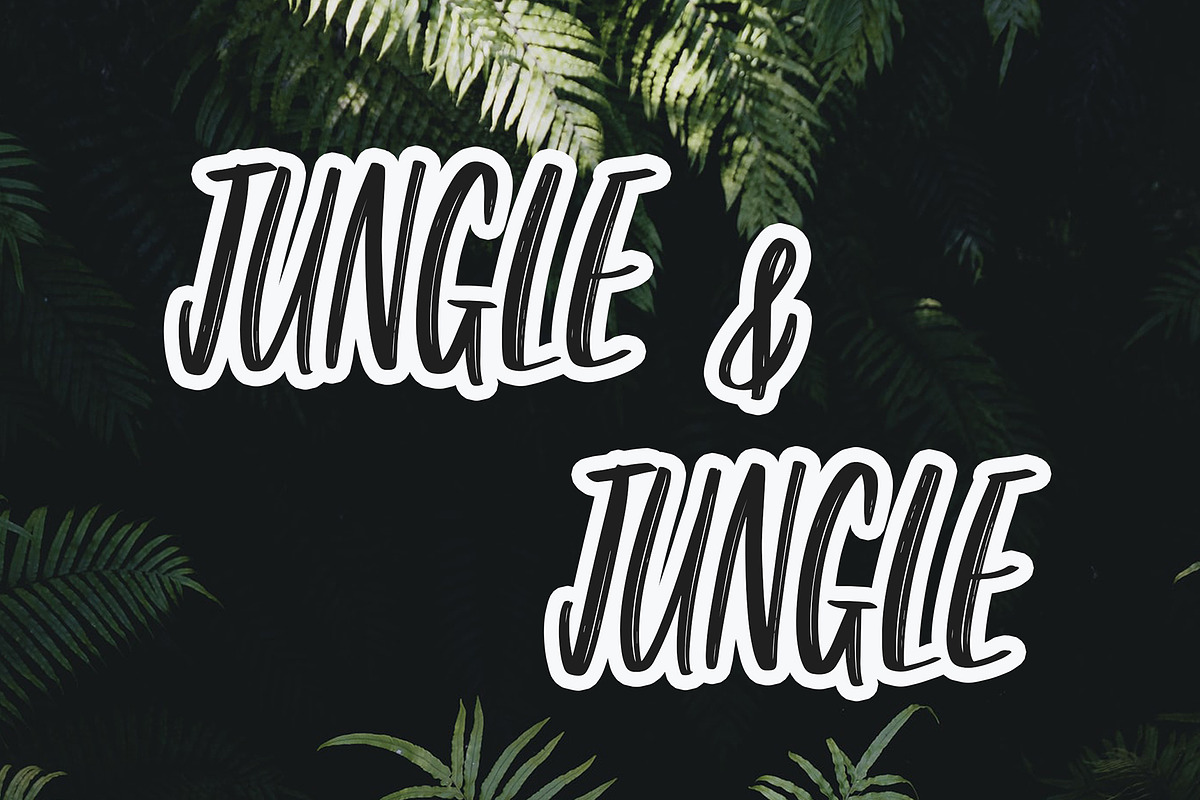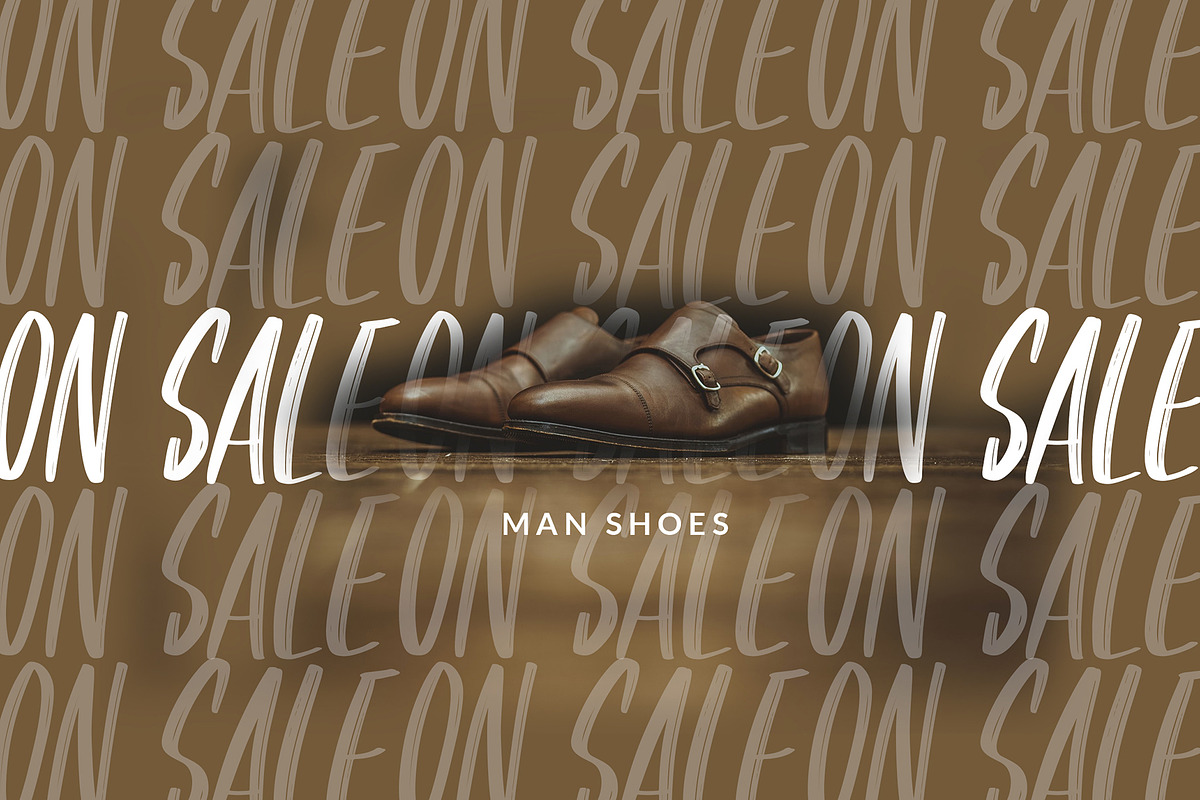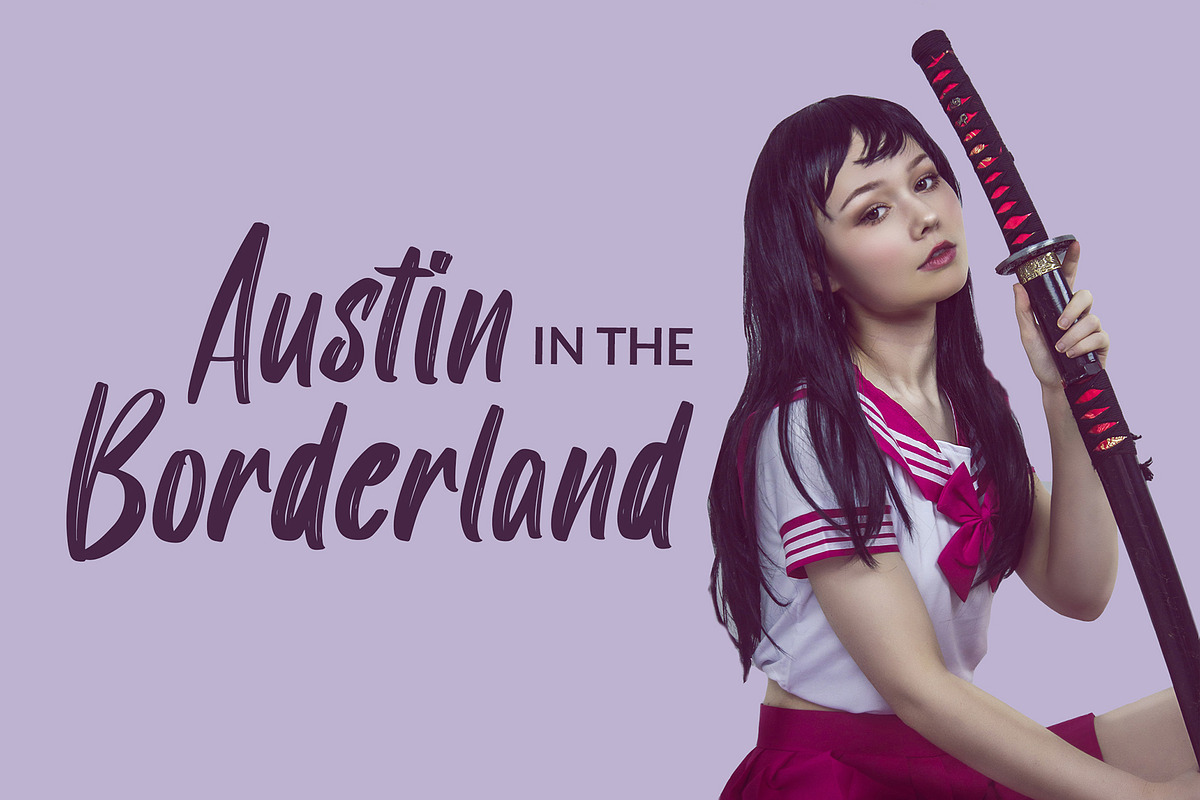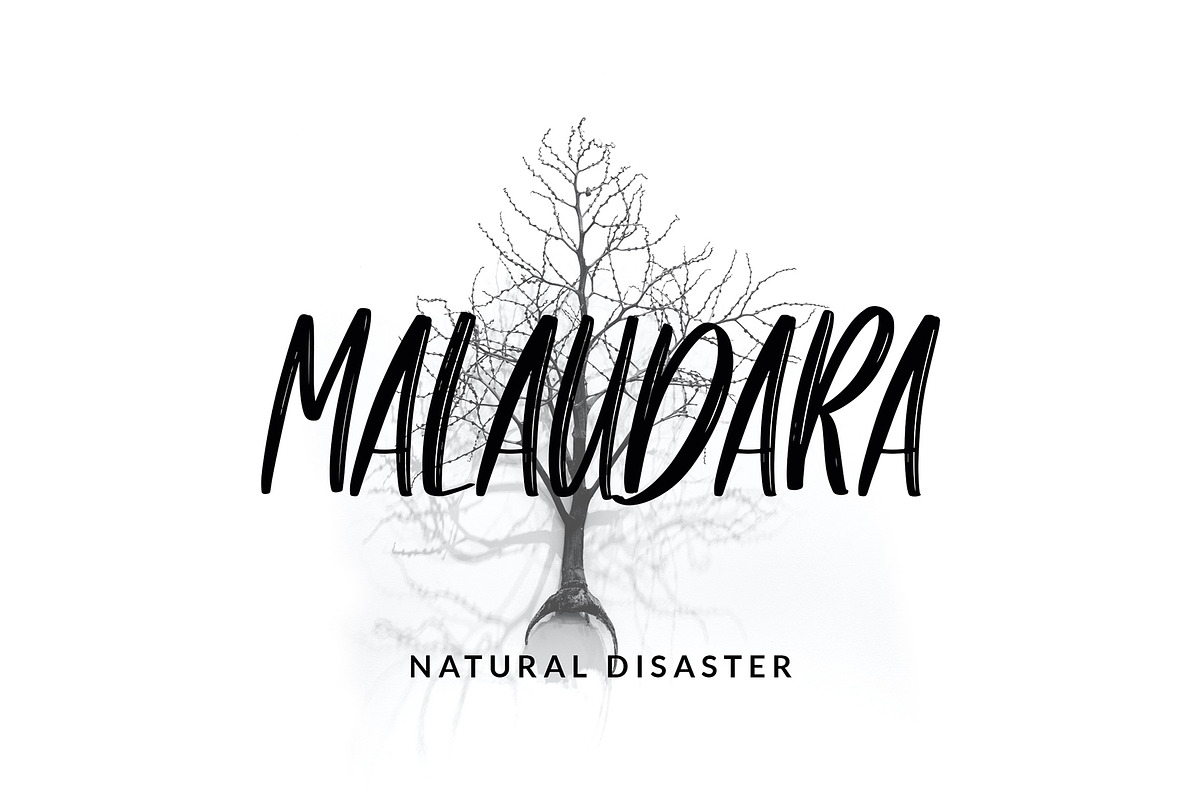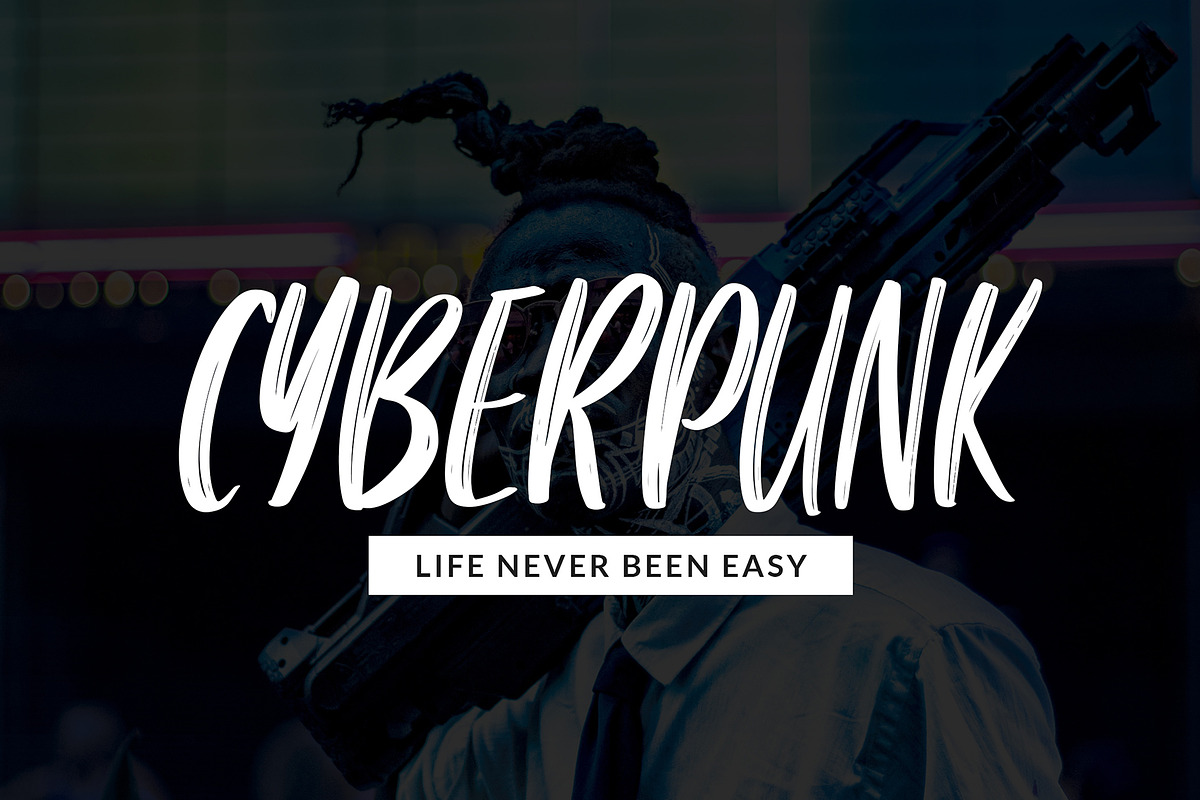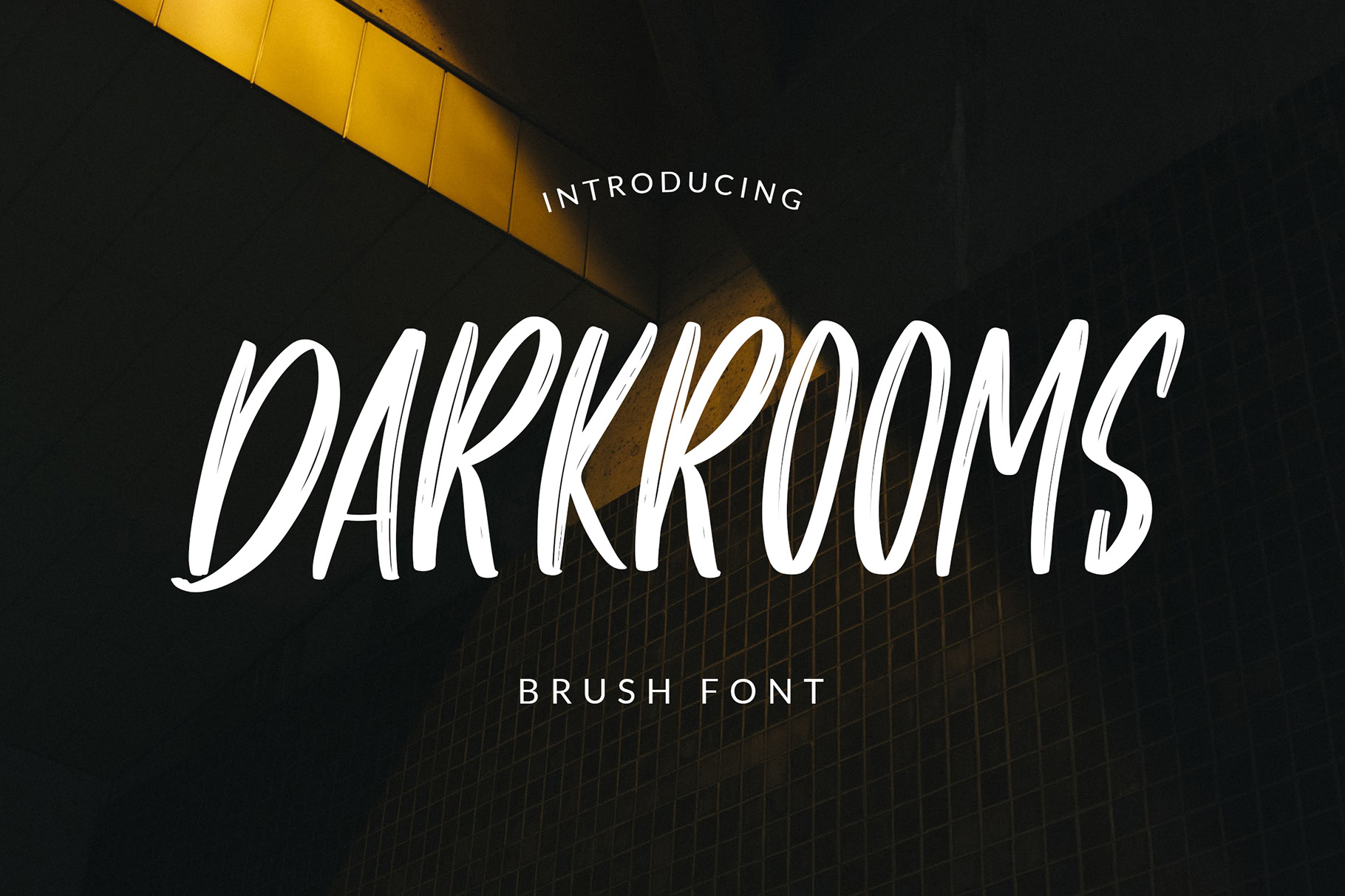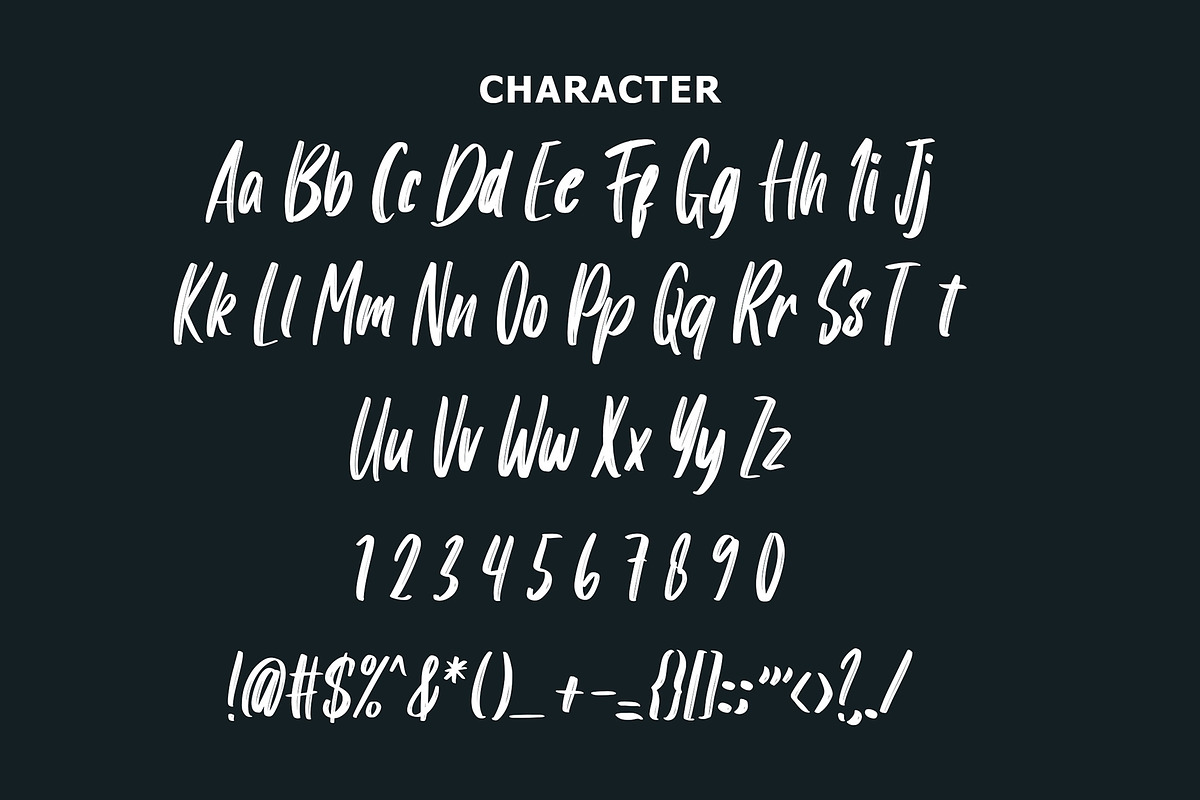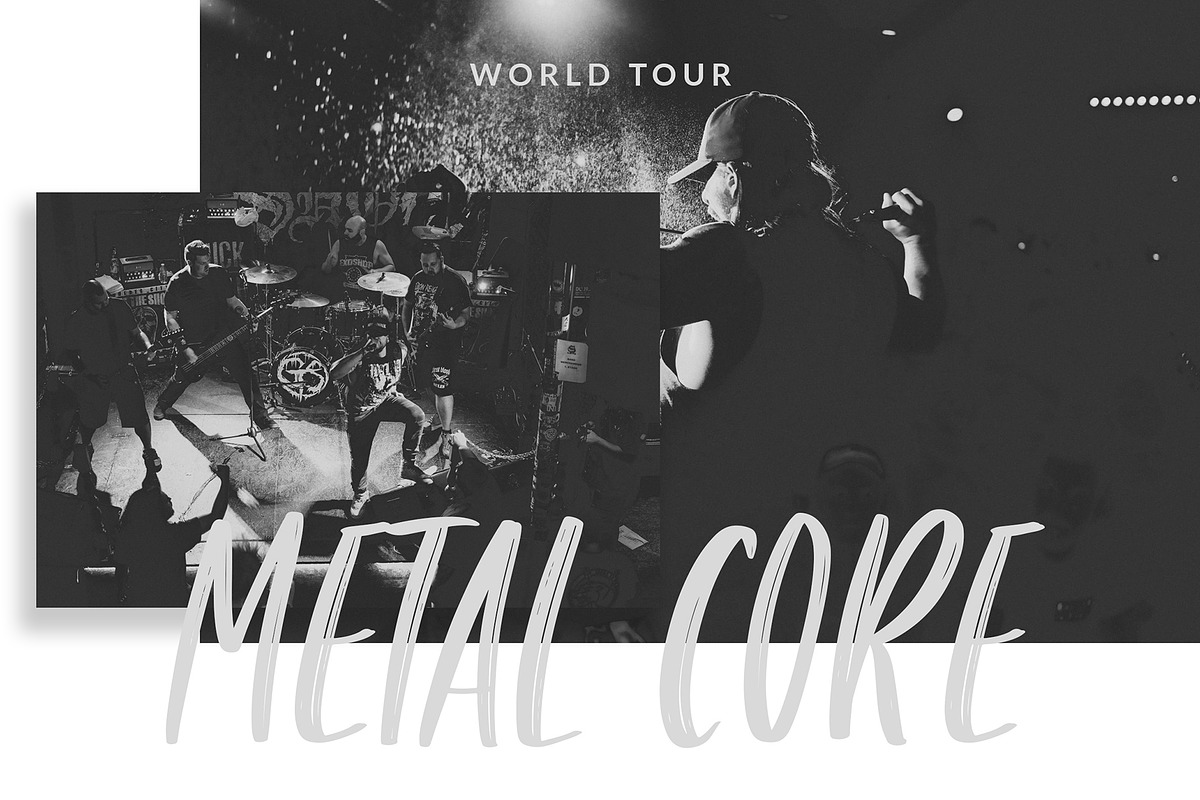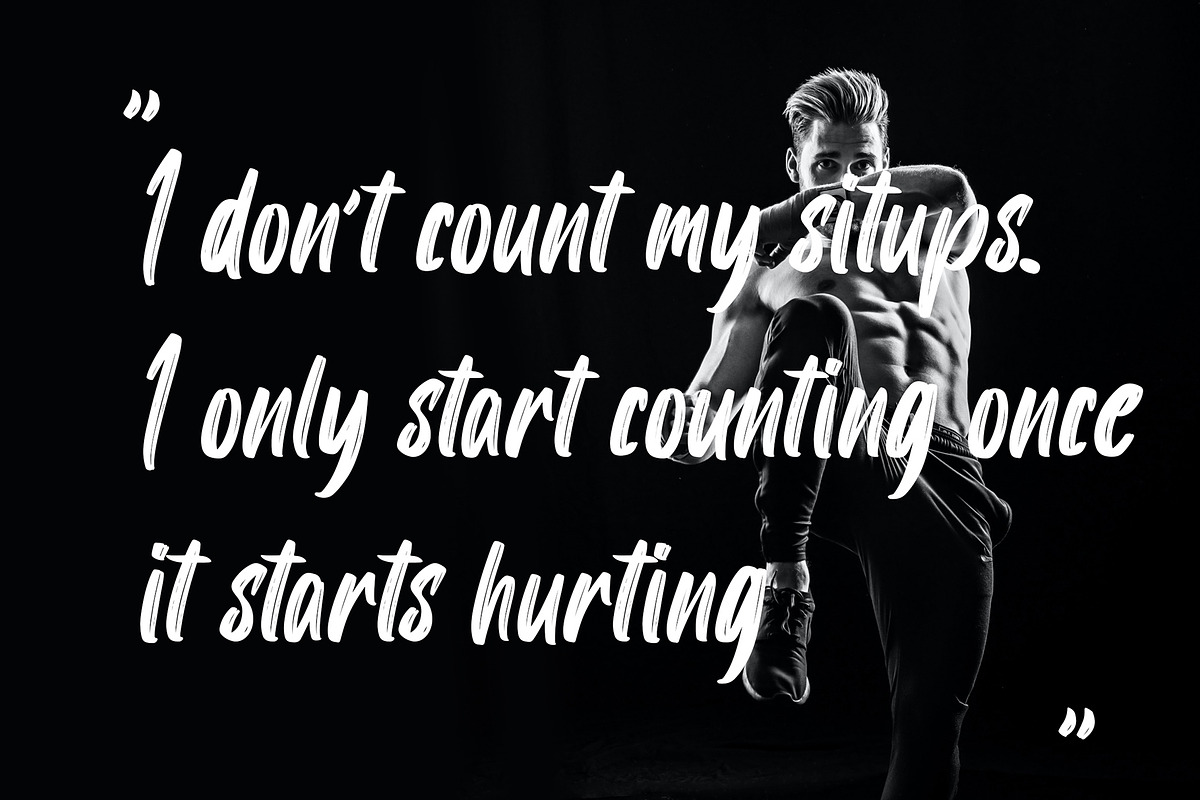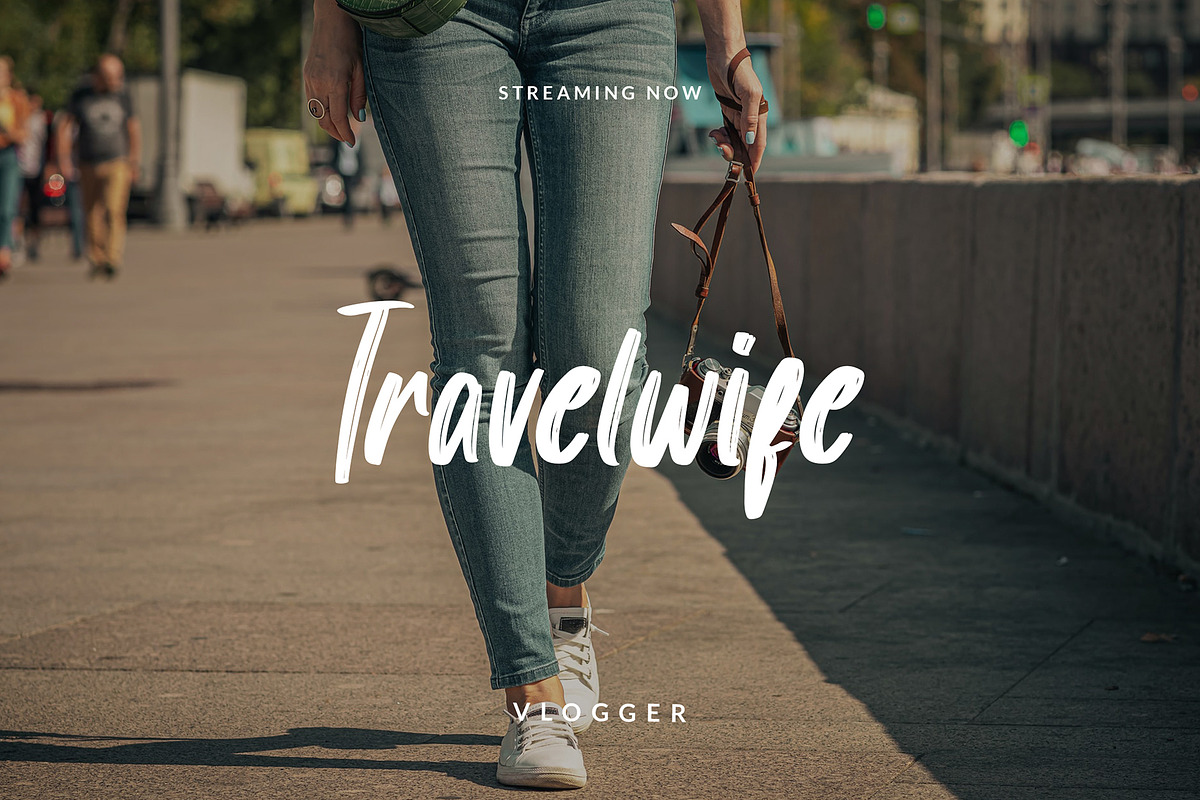
Darkrooms Brushed Font
Darkrooms Brushed Font is a handwritten font with a bold brush style. This font perfect for branding or events projects, logo, T-shirt designs, social media posts, advertisements, product packaging, product designs, label, watermark, invitation, stationery, and any projects.
This font is also fit for Energetic, fitness and gym, extreme sport, car racing, BMX, skateboard, trial, trial, Xtreme travel, and many more!